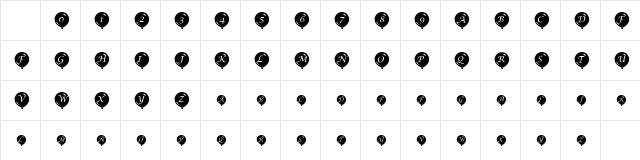
pf_ballons-1 Regular
Design Context for pf_ballons-1
pf_ballons-1 is a composed and adaptable typeface that performs quietly and consistently across a wide range of design contexts.